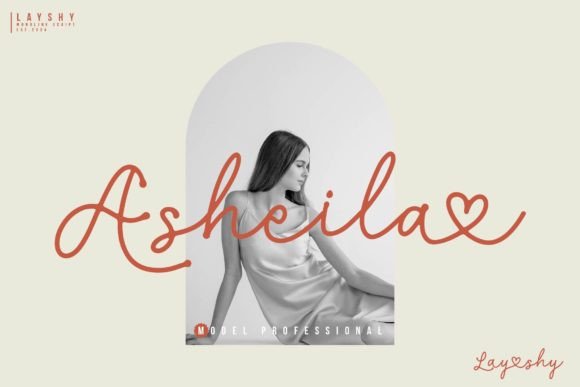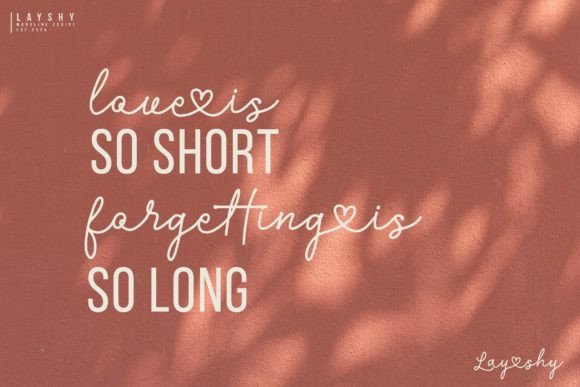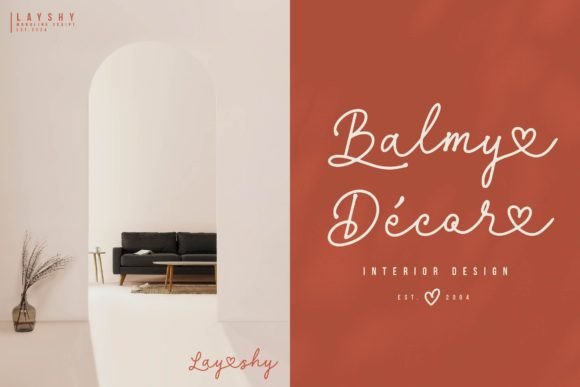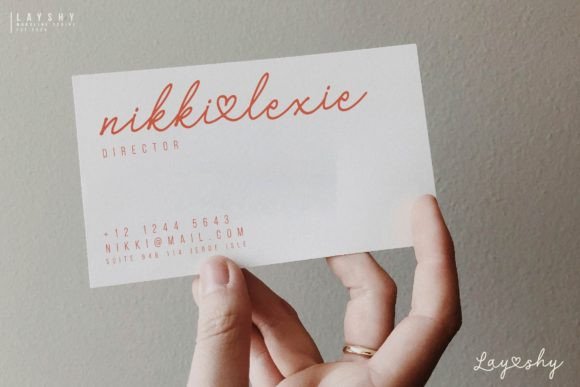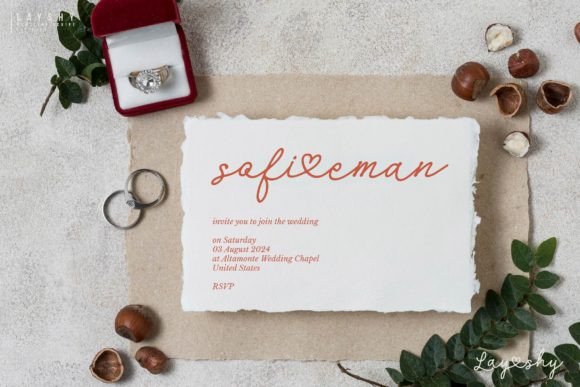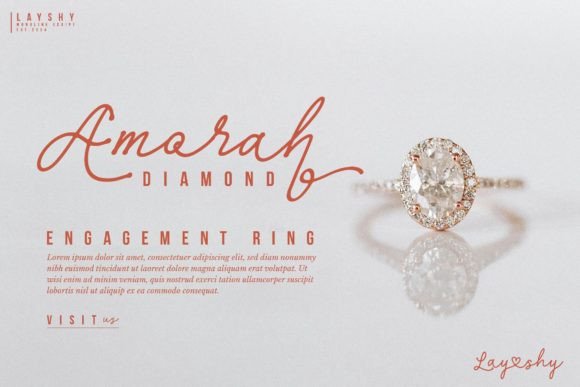
Introduction to Layshy Font
Have you ever found yourself lost in a sea of ideas, trying to bring a creative project to life? Perhaps you’re brainstorming the perfect font for a logo, or searching for the perfect design resource to elevate your branding. Whatever your design journey, you’re not alone. As designers, we’re constantly seeking that elusive combination of style, elegance, and functionality to make our projects shine.
Enter Layshy Font, the versatile and high-quality script font that’s been making waves in the design community. With its transparent background and monoline design, Layshy Font is the perfect addition to any creative project. Whether you’re working on logos, product packaging, or even photography, this font is sure to add a touch of sophistication and class to your work.
As a valuable resource for designers, Layshy Font offers a free download option, making it accessible to designers of all levels. With its high-quality design and endless possibilities, it’s no wonder that Layshy Font is becoming the go-to choice for creatives looking to elevate their designs and make a lasting impression.
Key Features of Layshy Font
- High-quality, free font suitable for various creative projects, including graphic design and digital art.
- Transparent background, making it easy to use with any design resource and custom background images.
- Includes a comprehensive set of characters, including uppercase and lowercase letters, numbers, and special symbols.
- Supports a wide range of languages, making it a versatile design resource for global creative projects.
- Designed to be highly legible at various resolutions, including 72 dpi, 144 dpi, and 300 dpi.
Honest Review: Layshy Font
As a designer, I’m always on the lookout for high-quality design resources to elevate my creative projects. Recently, I had the chance to try out the Layshy Font, and I must say, it’s a solid addition to any design library.
- ✨ Unique and elegant design aesthetic that adds a touch of sophistication to any project
- ✨ High quality, with crisp and clear typography that’s perfect for both digital and print applications
- ✨ Transparent background, allowing for easy customization and versatility
- ⚠️ Limited character set, which may not be suitable for projects that require extensive text
- ⚠️ Some characters may not be easily readable at smaller font sizes
Overall, I’m impressed with the Layshy Font, and I think it’s a great resource for designers who need a high-quality, elegant font for their creative projects. While it may have some limitations, it’s a solid choice for any design library.
Layshy Font is a high-quality design resource ideal for creative projects. This free download offers a unique and stylish look with its transparent background, making it perfect for adding a touch of elegance to your designs.
To maximize the potential of Layshy Font, use it in combination with other design elements, such as images and colors, to create a cohesive and visually appealing design.
Layshy Font is suitable for a variety of projects, including:
- Social media graphics and ads
- Personal branding and logo design